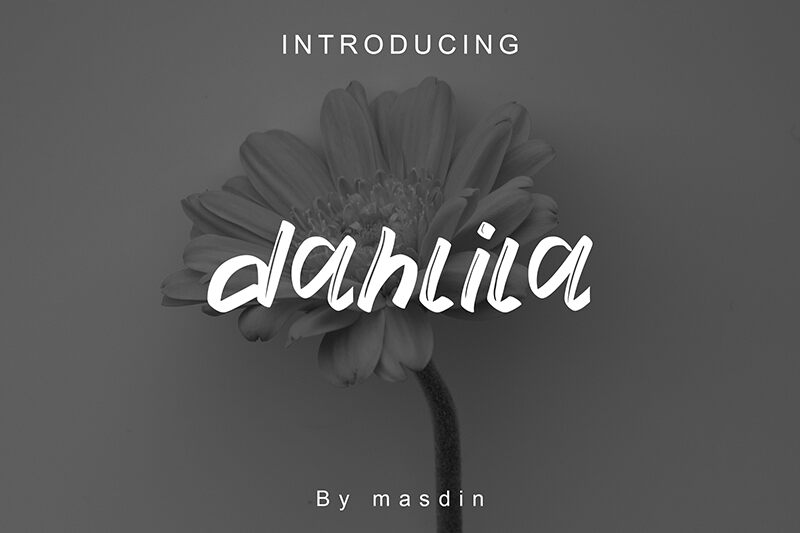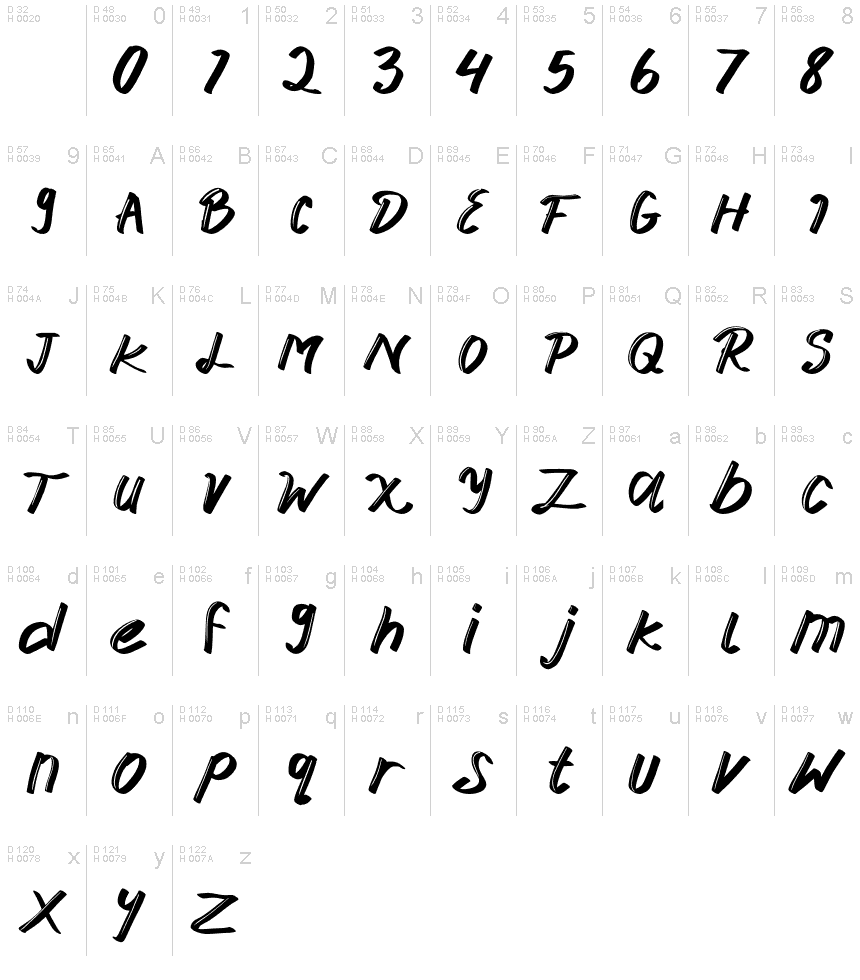
Dahlila
Dahlila is a marker script font designed by syaifuddin. It features a bold, vibrant look perfect for making an impact in any project. This font is great for creating logos, headlines, and posters that demand attention.